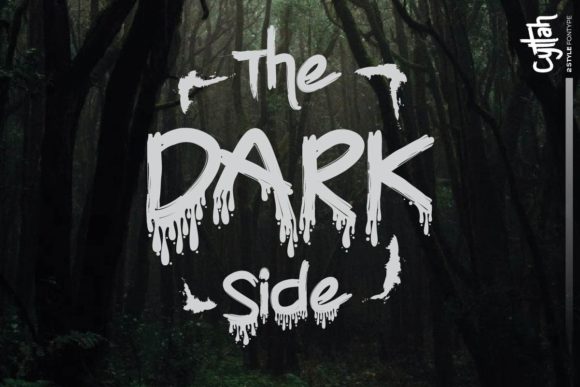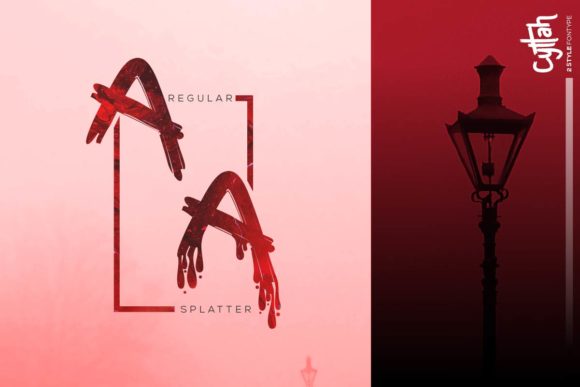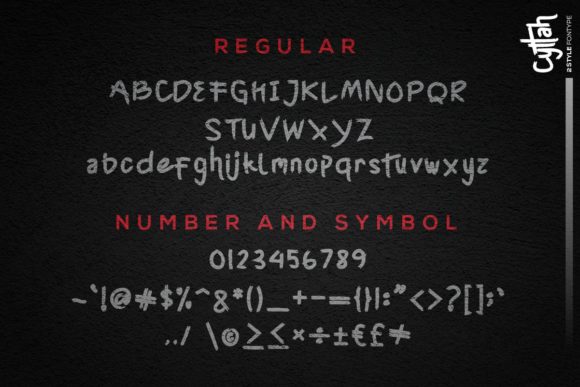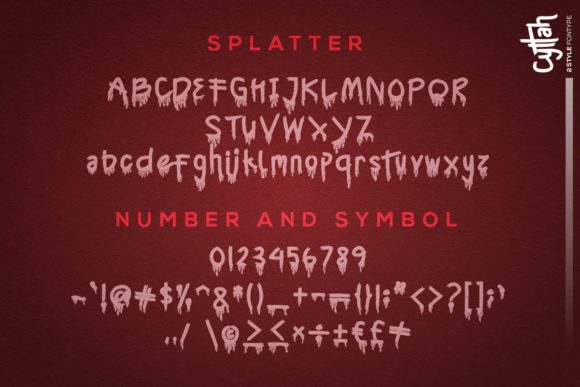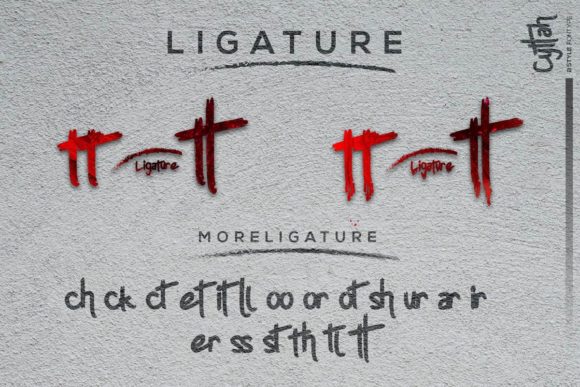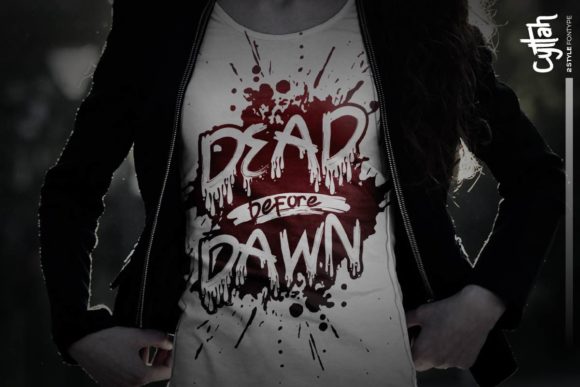
Cyttah Font: The Ultimate Horror-Themed Handwritten Font for Your Halloween Design Projects
As the spookiest time of the year approaches, designers and crafters are on the lookout for the perfect font to give their Halloween projects a haunting touch. Look no further than Cyttah Font, a horror-themed handwritten font with a dark twist that’s sure to make your designs stand out from the crowd.
What is Cyttah Font?
Cyttah Font is a unique and eerie handwritten font designed to add a touch of horror and suspense to any design project. With its dark and twisted aesthetic, this font is perfect for creating spooky Halloween designs, creepy crafts, and even horror-themed branding materials.
Key Features of Cyttah Font
• Horror-themed design: Cyttah Font features a distinctive horror-themed design that’s sure to send chills down the spine. Its twisted and eerie aesthetic makes it perfect for Halloween designs and horror-themed projects.
• Handwritten style: This font boasts a handwritten style that adds a personal and organic touch to your designs. The imperfect and irregular lettering gives it a creepy, handmade feel that’s perfect for horror-themed designs.
• Dark twist: What sets Cyttah Font apart from other horror-themed fonts is its dark twist. The font features a range of dark and eerie characters that will add a touch of malevolence to your designs.
• Versatile: Cyttah Font is versatile and can be used for a range of design projects, from Halloween-themed designs to horror-themed branding materials, and even creepy crafts.
How to Use Cyttah Font in Your Design Projects
Cyttah Font is easy to use and can be incorporated into a range of design projects. Here are some ideas to get you started:
• Halloween designs: Use Cyttah Font to create spooky Halloween designs, such as invitations, posters, and social media graphics.
• Horror-themed branding materials: Create horror-themed branding materials, such as logos, business cards, and brochures, using Cyttah Font.
• Creepy crafts: Use Cyttah Font to create creepy crafts, such as handmade cards, gift tags, and decorations.
• Typography-based designs: Use Cyttah Font as a focal point in typography-based designs, such as quote posters and inspirational graphics.
Tips for Using Cyttah Font Effectively
Here are some tips for using Cyttah Font effectively in your design projects:
• Use it sparingly: Cyttah Font is a bold and attention-grabbing font, so use it sparingly to avoid overwhelming your design.
• Pair it with other fonts: Pair Cyttah Font with other fonts to create a unique and interesting contrast.
• Experiment with colors: Experiment with different colors to find the perfect combination that complements the dark and eerie aesthetic of Cyttah Font.
Cyttah Font is a horror-themed handwritten font with a dark twist that’s perfect for adding a touch of horror and suspense to your design projects. With its unique and eerie aesthetic, this font is sure to make your Halloween designs and horror-themed projects stand out from the crowd. So why wait? Download Cyttah Font today and start creating spooky and creepy designs that will leave a lasting impression on your audience.
Whether you’re a designer, crafter, or horror fan, Cyttah Font is a must-have font for your design arsenal. So don’t miss out on this opportunity to take your designs to the next level with this unique and terrifying font.